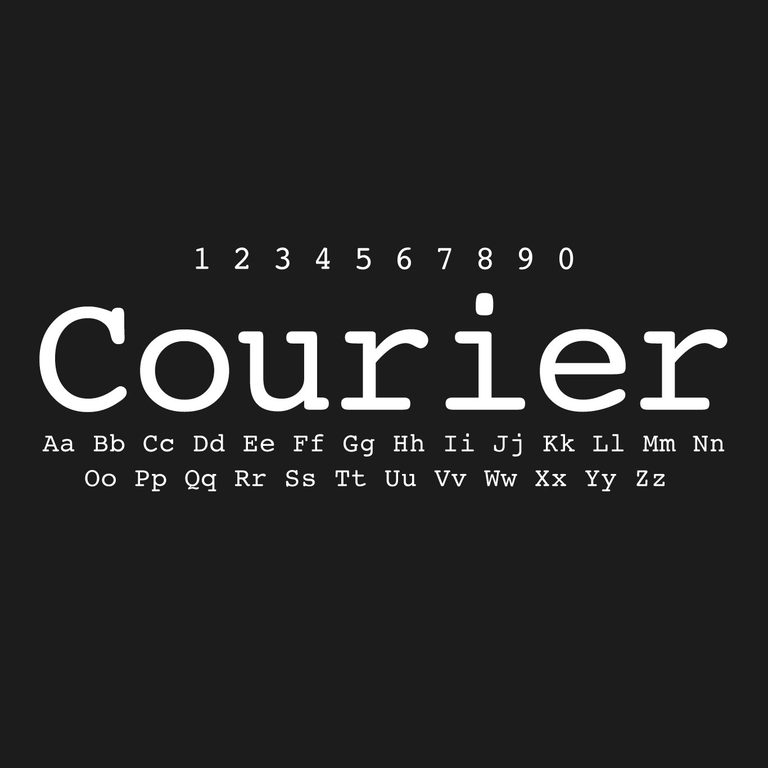
Courier still carries the plain, mechanical look of a typewriter. An “i” takes up just as much room as an “m”, which keeps the spacing completely even.
Font Name: Courier
Designer: Howard “Bud” Kettler
Classification: Monospaced / Slab Serif
About Courier
Howard “Bud” Kettler designed Courier for IBM in the 1950s. It was originally made for typewriters and later became a standard choice for manuscripts, screenplays and technical documents.
Courier has appeared in many digital versions over the years. Its fixed spacing remains useful when text needs predictable alignment, especially in scripts, tables and plain-text layouts.
Courier New, Courier Prime, Liberation Mono and Nimbus Mono share the same general monospaced typewriter structure. Courier Prime is a particularly useful alternative for screenwriting and longer text.